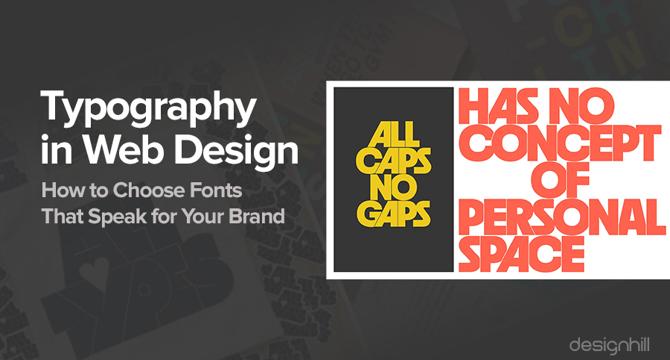
<ul data-eligibleForWebStory="true">Typography is crucial in web design, influencing legibility and brand messaging.Fonts like serif, sans-serif, slab-serif, script, and monospace offer different styles.Consider font legibility, color contrast, brand alignment, contemporary style, and legal compliance.Choosing the right fonts enhances user experience and strengthens brand identity in web design.Key tips include prioritizing readability, color contrast, brand identity alignment, contemporary style, and legality.